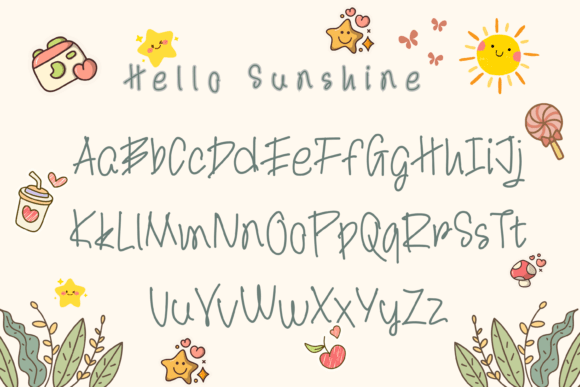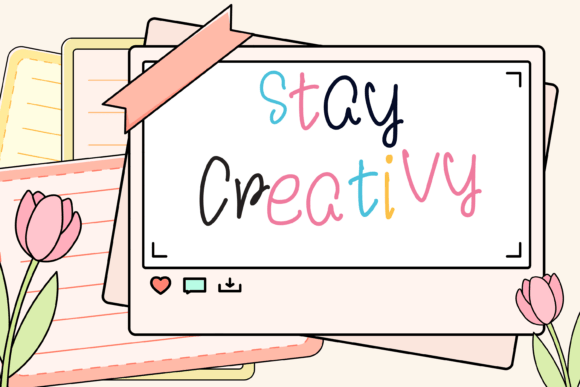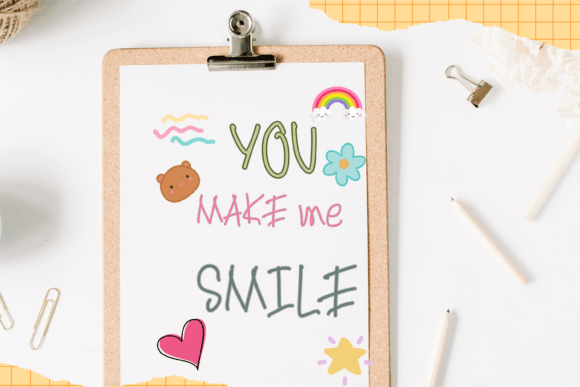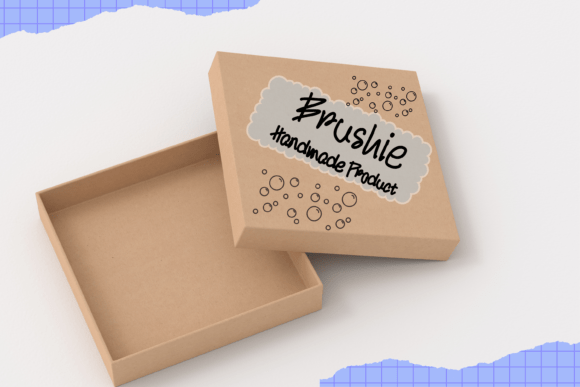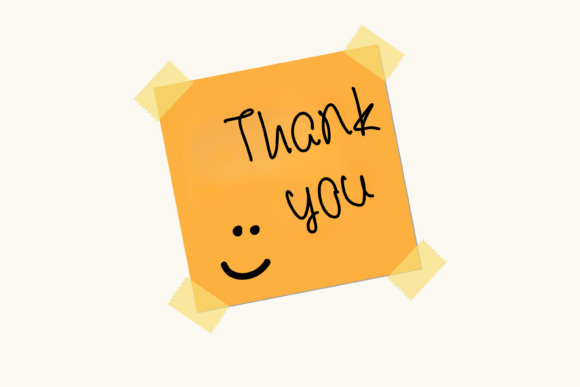
The Brushie Font: A Playful and Handmade Design Essential
I’ll never forget the design project that led me to discover the Brushie font. I was working on a whimsical poster for a local craft fair, and I was struggling to find the perfect font that captured the playful, handmade vibe of the event. That’s when I stumbled upon Brushie, a delightful hand-painted font that instantly brought warmth and personality to my design. In this article, I’ll share my experience with Brushie, its features, and how to make the most of this charming font in your creative projects.
An Honest Review of Brushie Font
What I Love About Brushie ✨
• 💫 Playful and friendly character: Brushie has a unique, hand-painted feel that adds a touch of whimsy to any design.
• ✅ Casual charm: This font is perfect for creating designs that feel approachable and laid-back.
• 🎨 Natural brush strokes: The font’s natural, hand-painted strokes give it a genuine, handmade look.
• 📚 Versatility: Brushie can be used for a wide range of projects, from posters and logos to social media graphics and stickers.
While Brushie is an excellent font, it’s not without its limitations. For instance:
• ⚠️ Limited use in formal designs: Brushie’s playful nature makes it less suitable for formal or professional projects that require a more serious tone.
• ⚠️ Legibility at small sizes: As with many script fonts, Brushie can become difficult to read at very small sizes.
The Story Behind Brushie Font
Brushie font was designed with the intention of capturing the warmth and personality of handwritten text. The designer aimed to create a font that felt approachable, friendly, and perfect for creative projects. While the exact story behind Brushie might be unknown, its design is undoubtedly inspired by the world of hand-painted signs, street art, and whimsical illustrations.
Q: What type of projects is Brushie font best suited for?
A: Brushie font is ideal for creative projects like posters, logos, social media graphics, stickers, and shop signage.
Q: Is Brushie font suitable for body text?
A: While Brushie is a beautiful font, it’s better suited for headings and titles. For body text, consider using a more legible font.